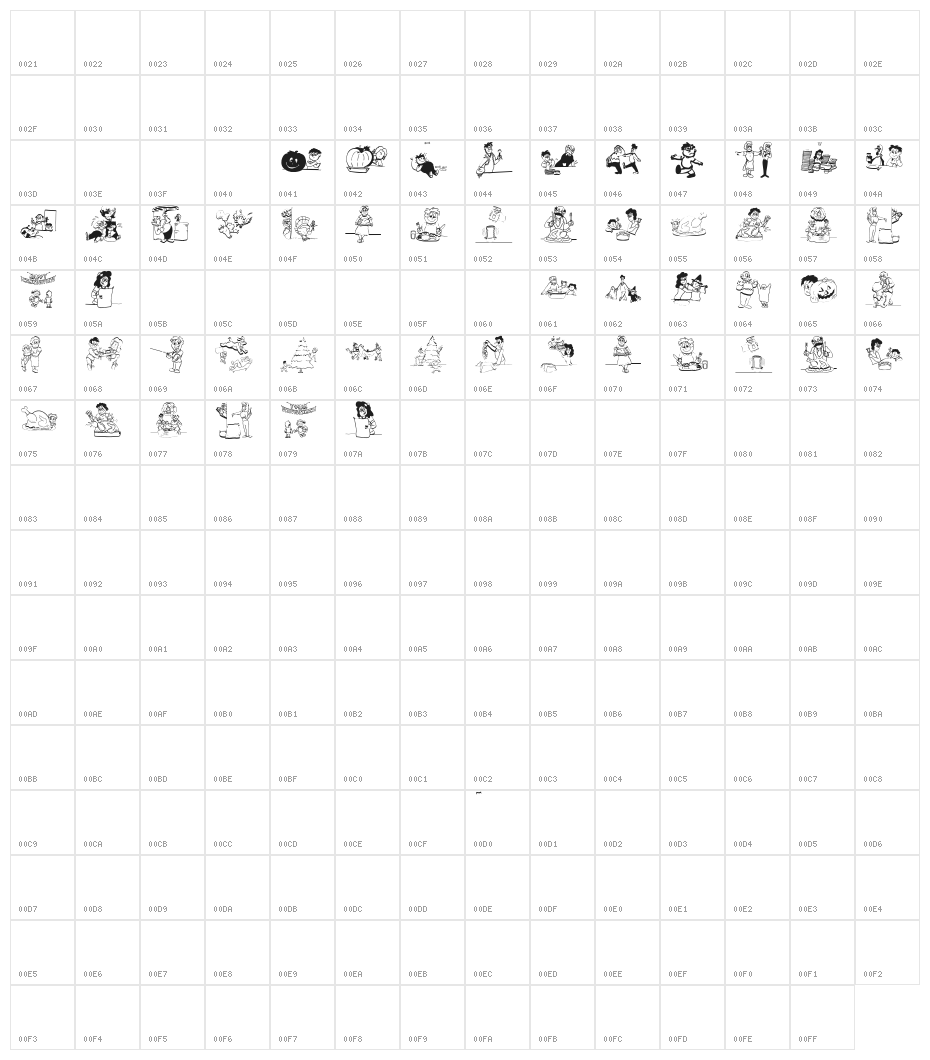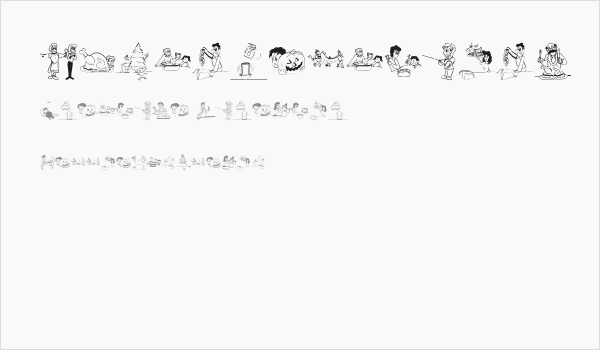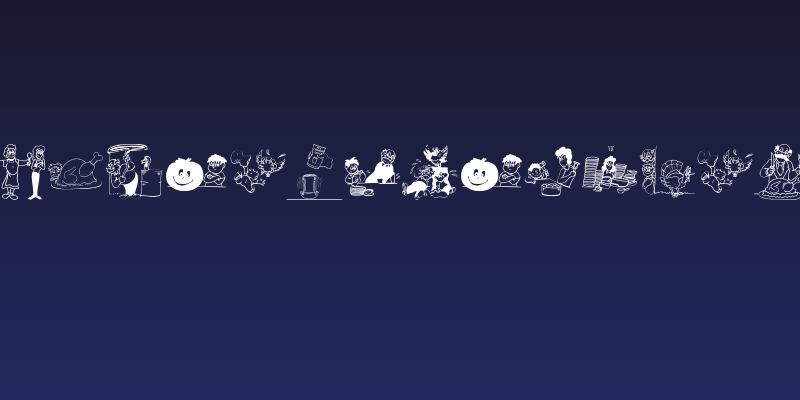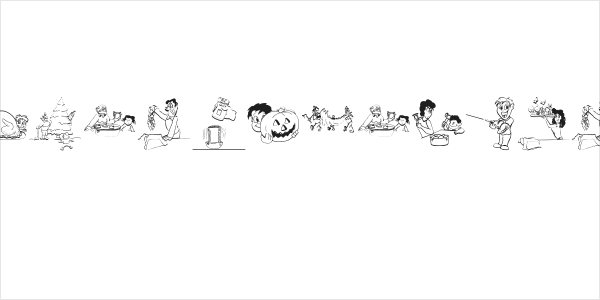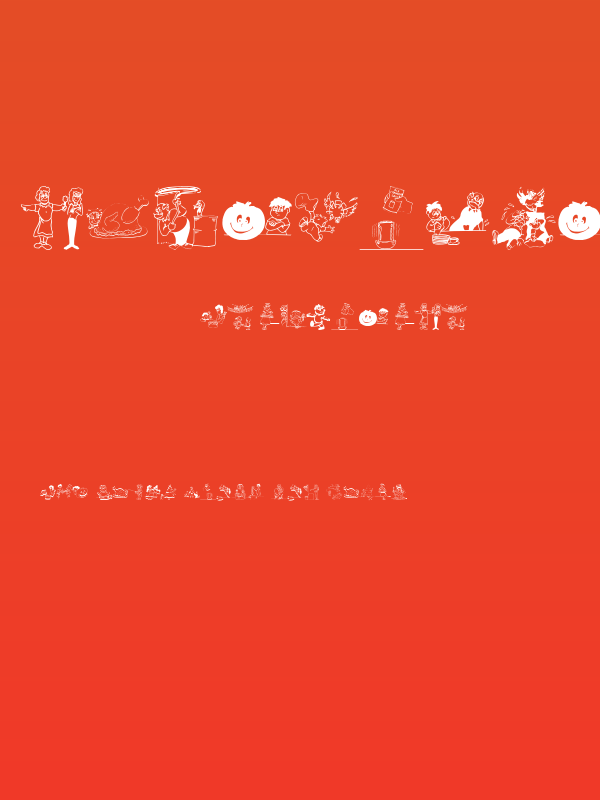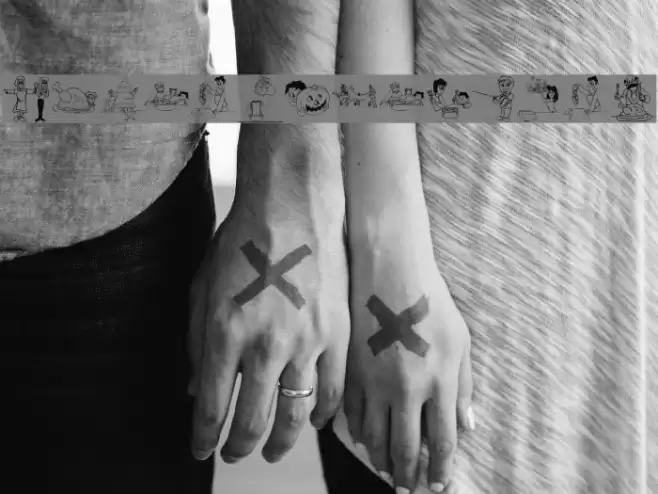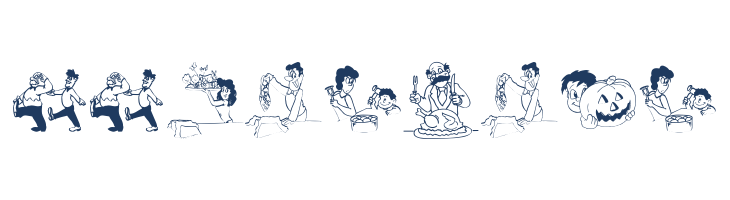
HumanRelations Font
HumanRelations Description
| Overall Style | Decorative, Playful, Whimsical |
| Use Case | Headlines, Logos, Themed event materials, Posters |
| Proposed Projects | Children’s books, educational materials, greeting cards, holiday-themed posters, playful branding. |